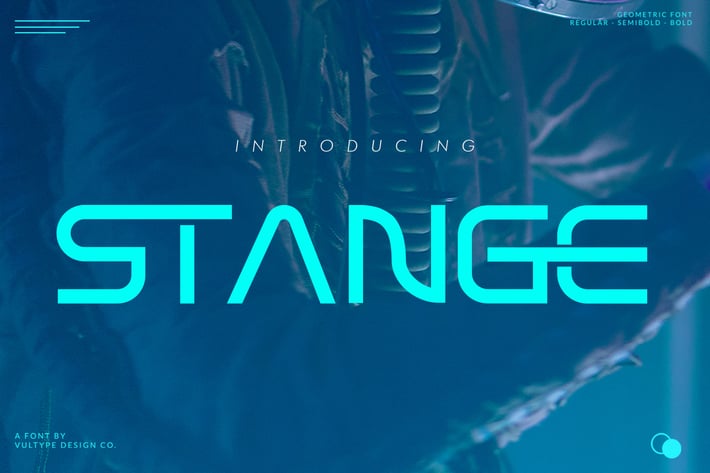
Stange Bold - Modern Font
Stange is a sans based font with unique lowercase that will make your design looks futuristic and modern. You can use this font for any purpose, especially to make logotype.